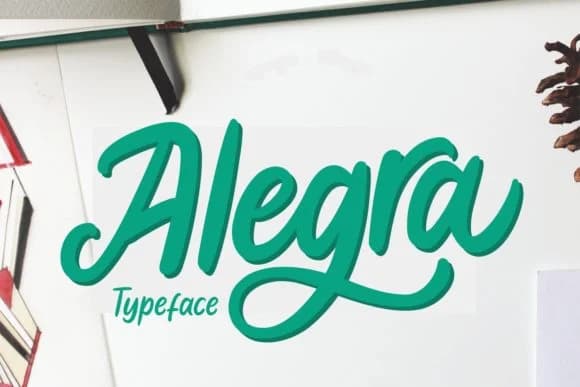
Picture a boutique brand owner sketching out their logo and realizing they need letterforms with real character and backbone, something hand-drawn but reliable enough for print. Alegra by Aysa delivers exactly that: a handwritten script that commands attention without sacrificing legibility or charm. The font's confident strokes capture the essence of hand-drawn work while maintaining enough structure to hold up in actual design applications across different sizes and contexts.
This script works beautifully across several specific applications: wedding invitation suites where classic romance meets contemporary edge, custom product labels for small-batch goods and artisan packaging, personalized greeting card designs for boutique businesses, and brand lettering for indie studios and startups. Its bold weight means it reads at a glance even when used large-scale on banners or storefront signage, while its organic character keeps everything feeling intentional rather than rushed or sterile.
When you need letterforms with personality backed by solid construction, Alegra delivers what you're after. Aysa understood that genuine handwriting needs functional structure to work at scale. The balance between authentic pen-stroke irregularity and deliberate letterform design means the script feels alive without sacrificing usability or readability. Grab it on Creative Fabrica and start lettering with real character.
Alegra Font is a script font that shines as a display or heading face. Pair it with a clean sans-serif or serif font for body text β the contrast creates a clear hierarchy while the two styles stay balanced and easy to read.
Alegra Font